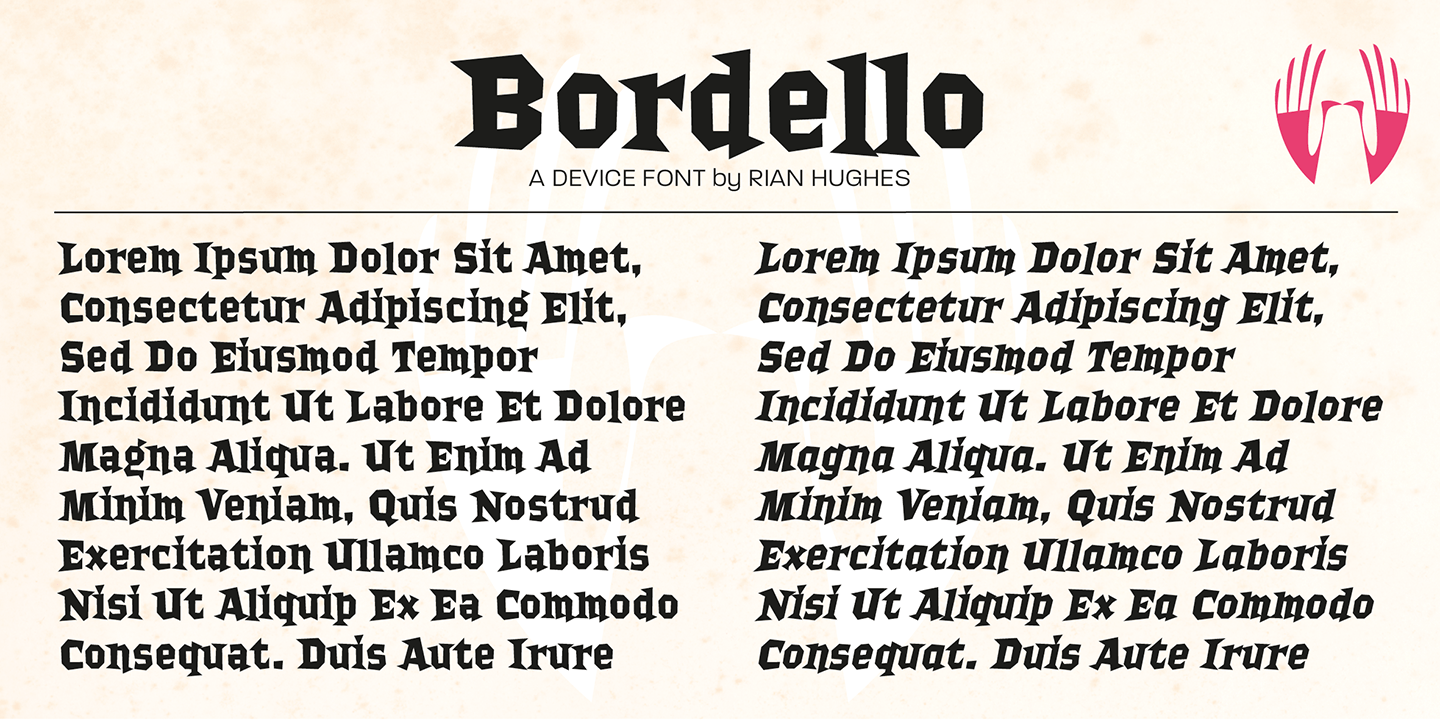
Bordello
Bordello is a playful serif display family with a bold, offbeat personality. Its mix of sturdy weight, italic motion, and a shaded style gives it a lively, slightly theatrical look that feels fun, wacky, and full of character.
This family includes three styles: Bordello Shaded, Bordello Bold Italic, and Bordello Bold. That range makes it easy to shift from punchy headlines to more animated, attention-grabbing compositions while keeping a consistent voice.
Designed by Device, Bordello is a strong choice for posters, branding, packaging, signage, and other display work that calls for a spirited serif with a little extra flair.